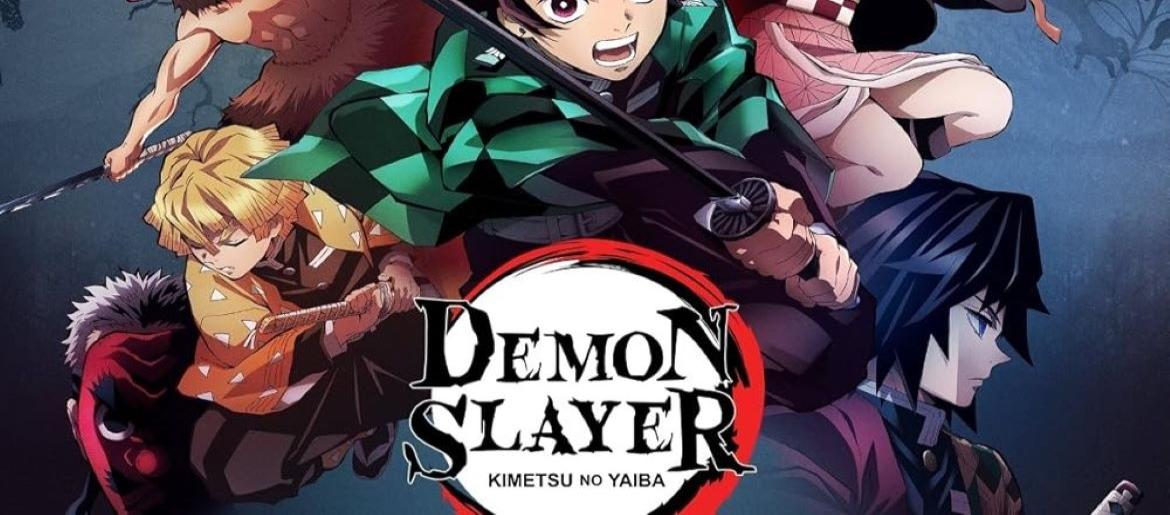
Demon Slayer Font
The Demon Slayer font captures the intense and breathtaking energy of the globally acclaimed anime and manga series Demon Slayer: Kimetsu no Yaiba. With bold strokes and dramatic flair, this typeface reflects the series’ blend of action, emotion, and traditional Japanese aesthetics. Ideal for posters, fan art, gaming graphics, or any project that needs a striking and powerful look, it balances elegance with sharp details, instantly adding a heroic and adventurous feel to your design.
About Demon Slayer
Demon Slayer: Kimetsu no Yaiba is a Japanese anime and manga created by Koyoharu Gotouge. The story follows Tanjiro Kamado, a young swordsman who battles demons to avenge his family and save his sister Nezuko, blending stunning visuals with heartfelt storytelling and epic battles.